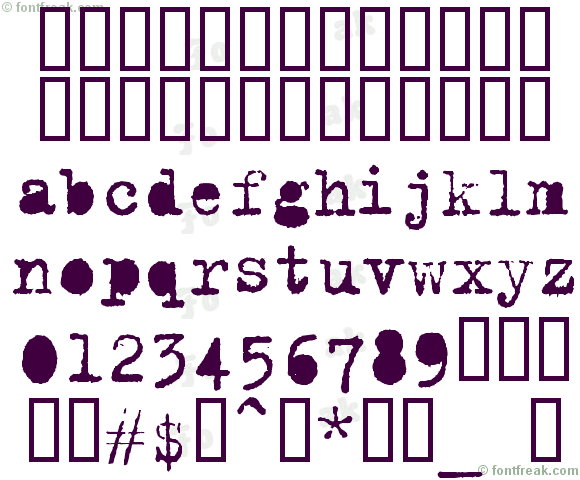
TrixieExtra
About Trixie Extra
Trixie Extra, designed by Erik Van Blokland in 1991, is a distinctive display font that captures attention with its playful and whimsical character. This freeware typeface stands out within the realm of decorative fonts, showcasing a unique combination of bold strokes and intricate detailing that make it a versatile choice for various design projects. The font's visual characteristics include a medium stroke weight with a notable contrast that enhances its visibility. The spacing between letters is well-balanced, allowing for easy readability while maintaining a lively aesthetic. Decorative elements, such as exaggerated curves and unexpected angles, give Trixie Extra a dynamic quality, making it perfect for headlines and titles.
Ideal use cases for Trixie Extra include wedding invitations, where its charming design can add a touch of elegance and personality. It also shines in movie posters, capturing the essence of a film’s theme with its eye-catching style. For restaurant menus, Trixie Extra provides a unique flair that can enhance the dining experience, inviting patrons to explore the offerings. Additionally, this font works wonderfully for children's book covers, where its playful nature engages young readers and sparks their imagination.